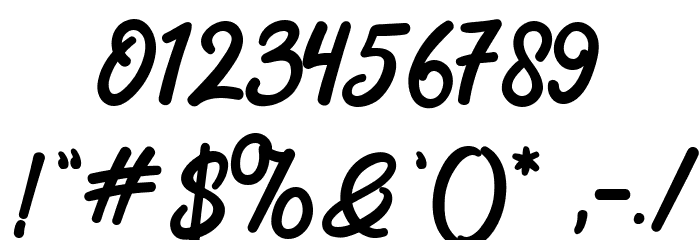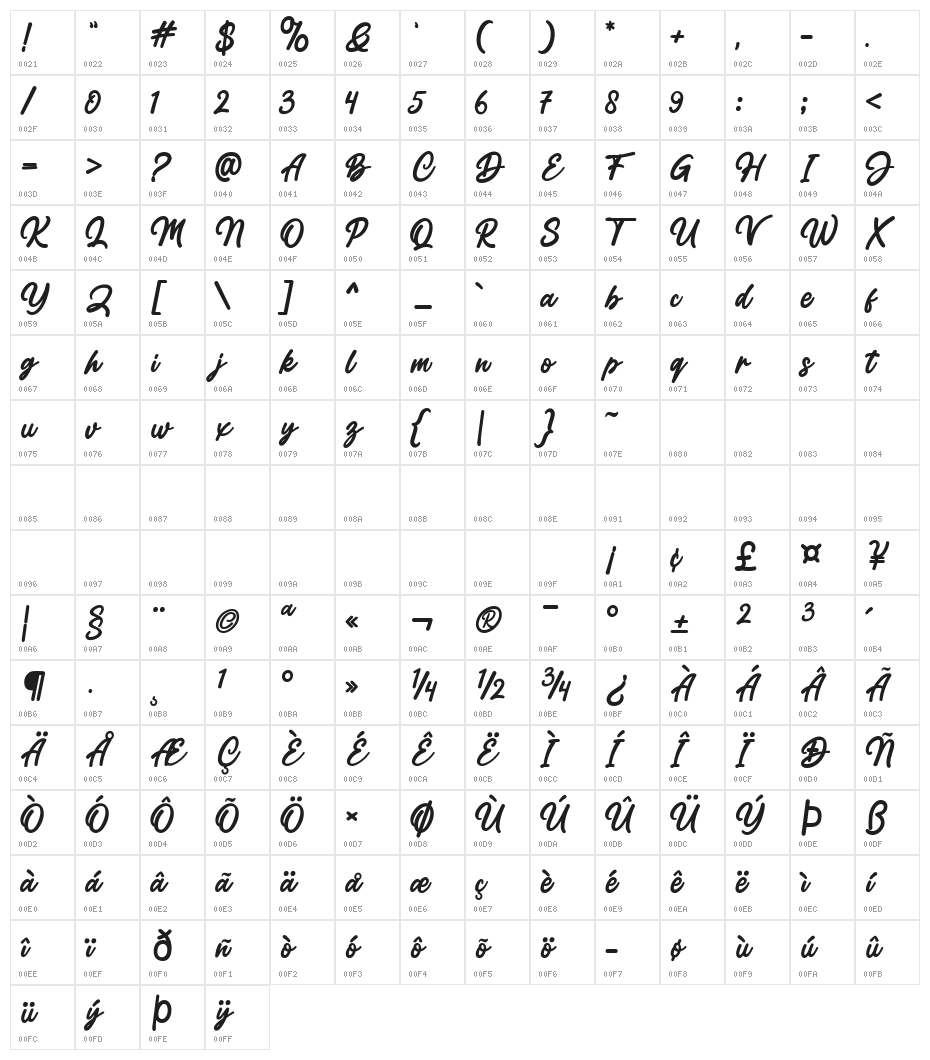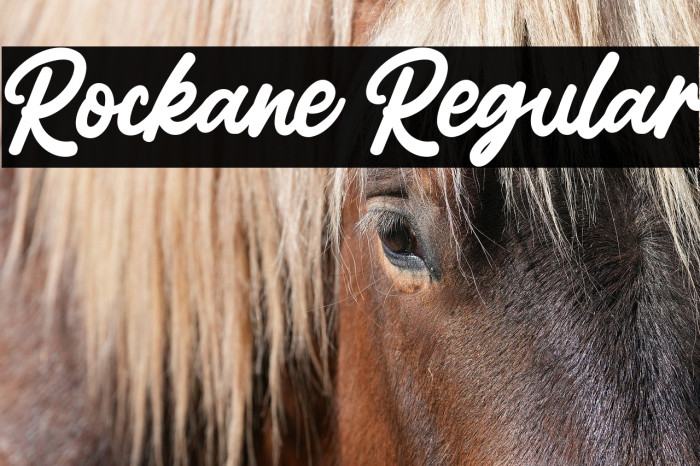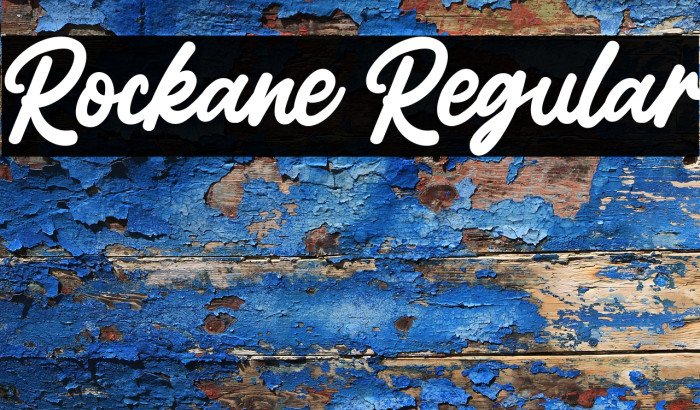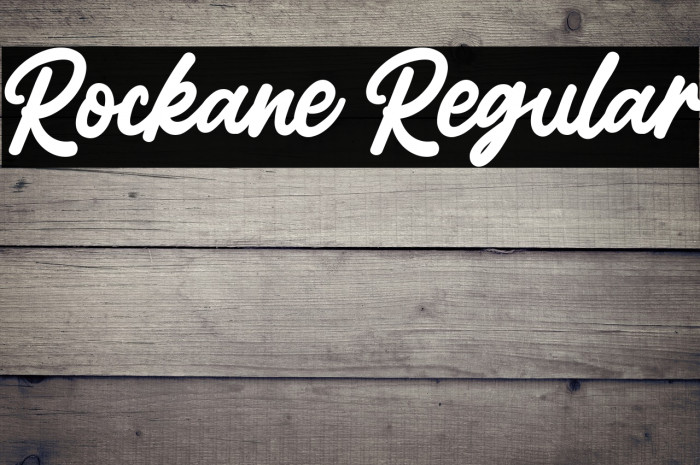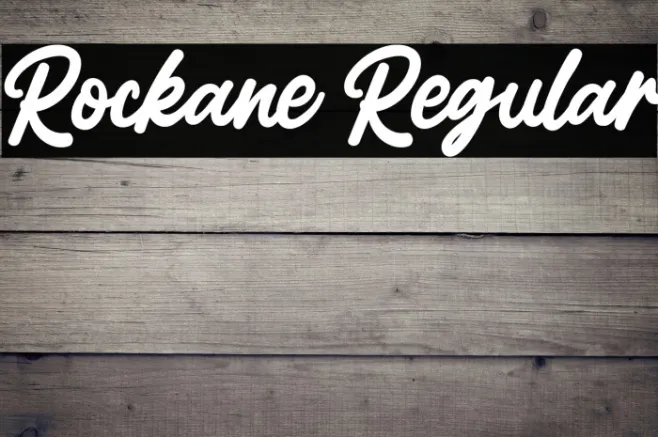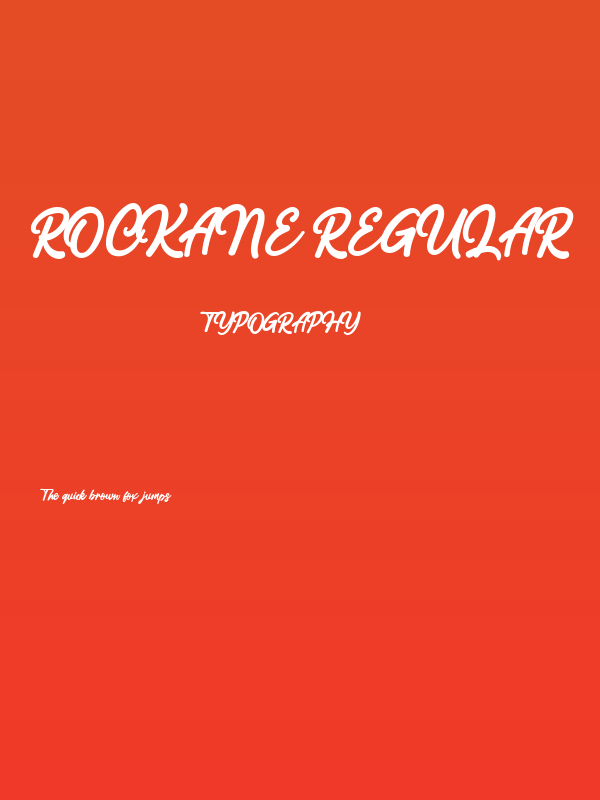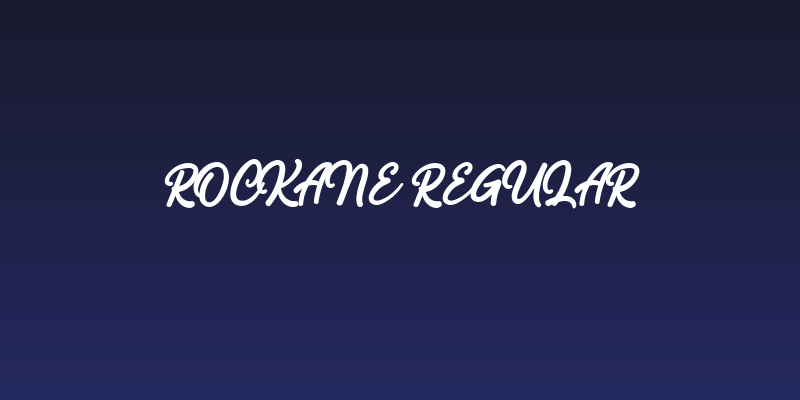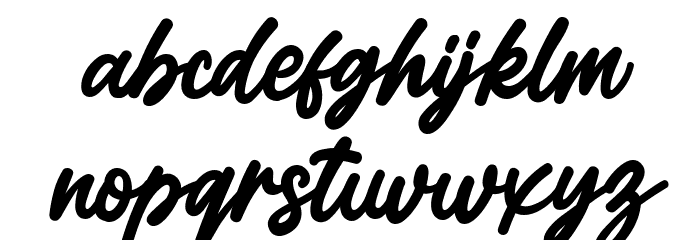
Rockane Regular Font
Rockane Regular Description
This font features a bold and flowing script style, characterized by its smooth, connected strokes that mimic the fluidity of handwriting. The uppercase letters are elegantly curved, with a slight slant that adds a sense of motion and dynamism. The lowercase letters maintain a consistent style, with rounded forms and a harmonious balance between thick and thin lines. The numerals are equally stylized, maintaining the overall aesthetic with their rounded and connected forms. The special characters are designed to complement the script style, ensuring a cohesive look across all text elements. This font exudes a sense of elegance and sophistication, making it suitable for a variety of creative applications.